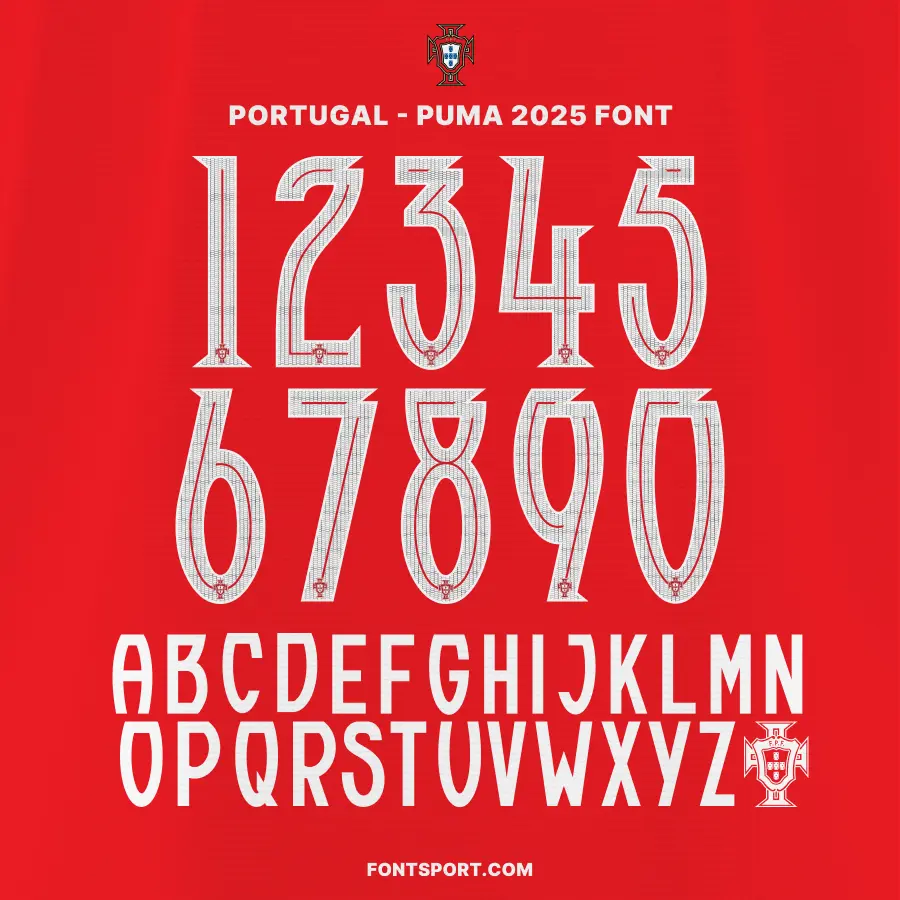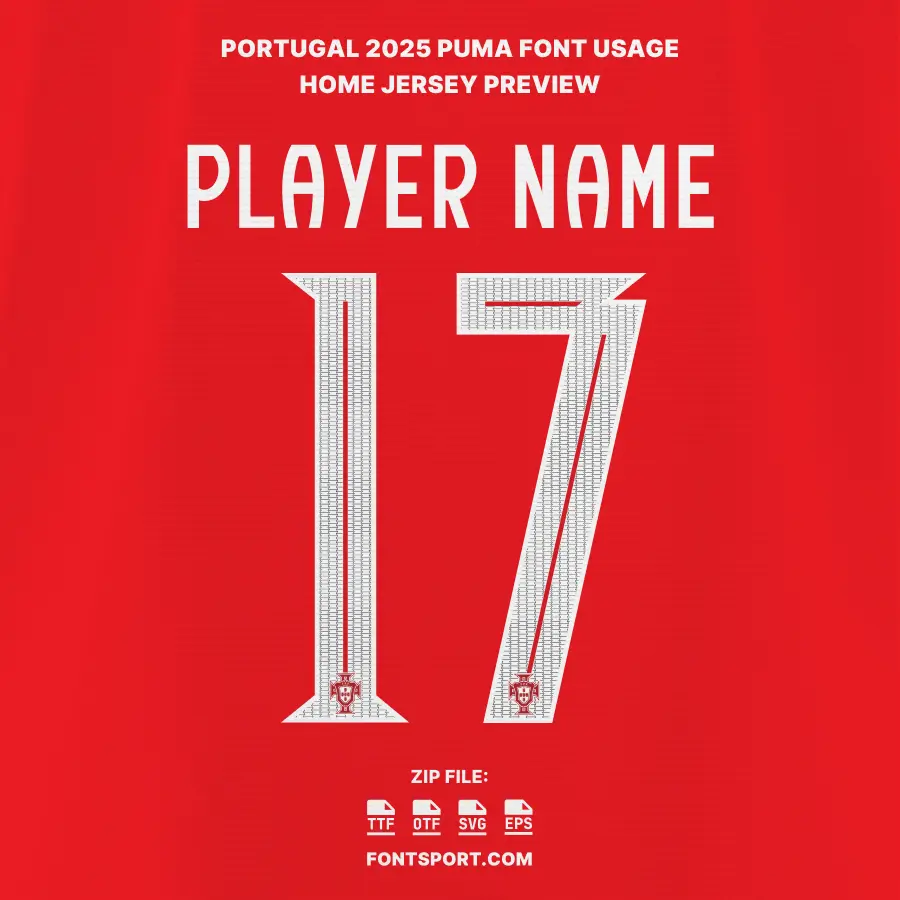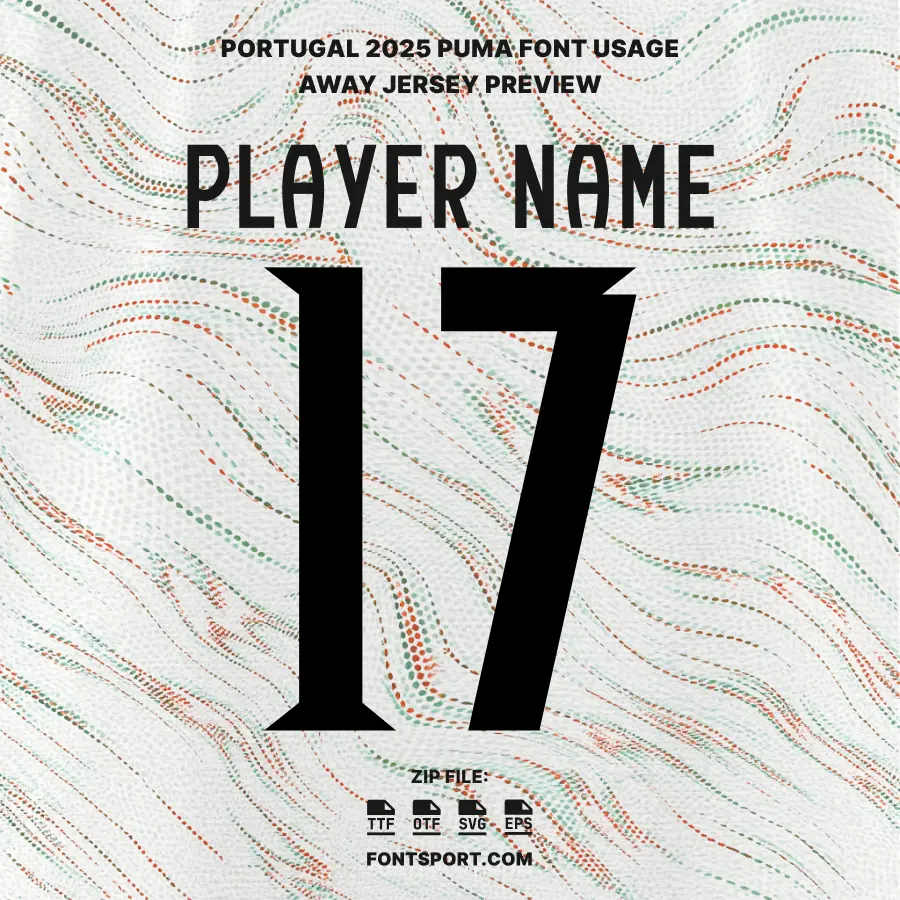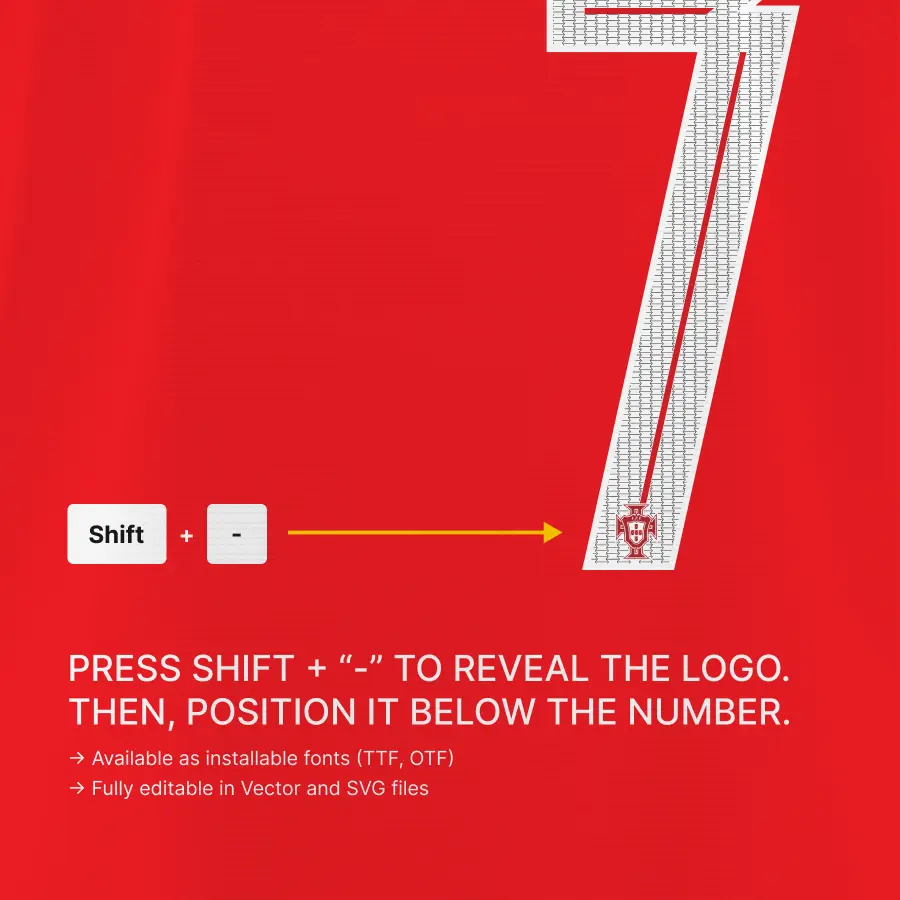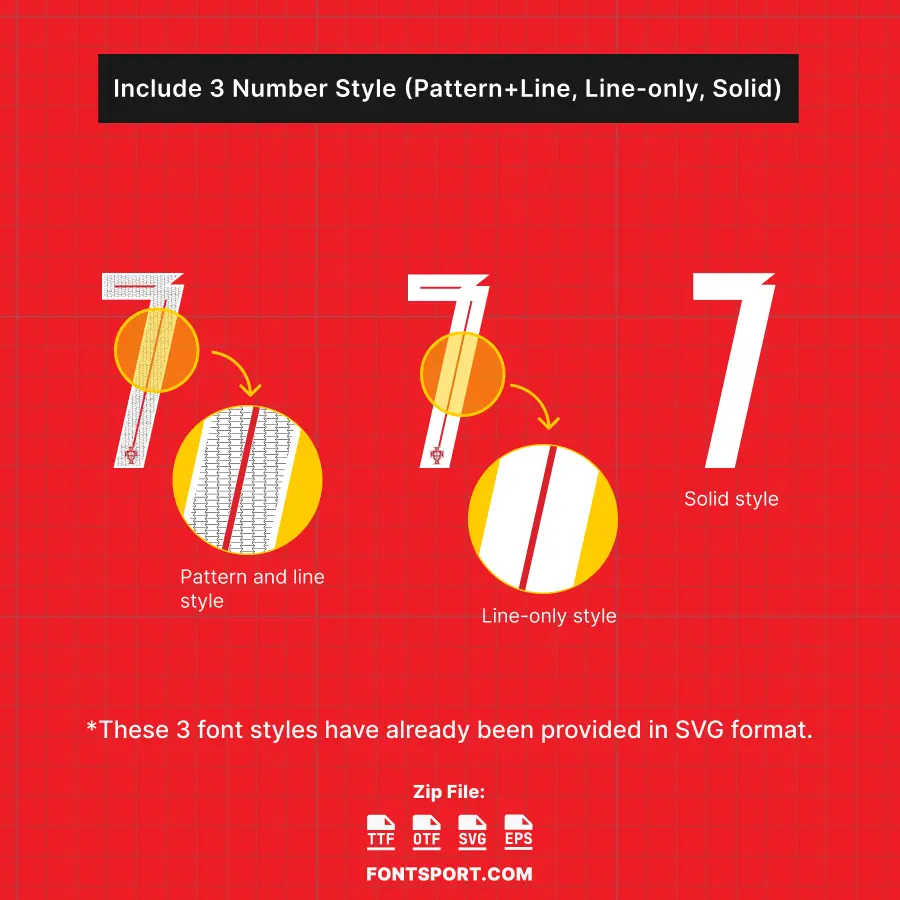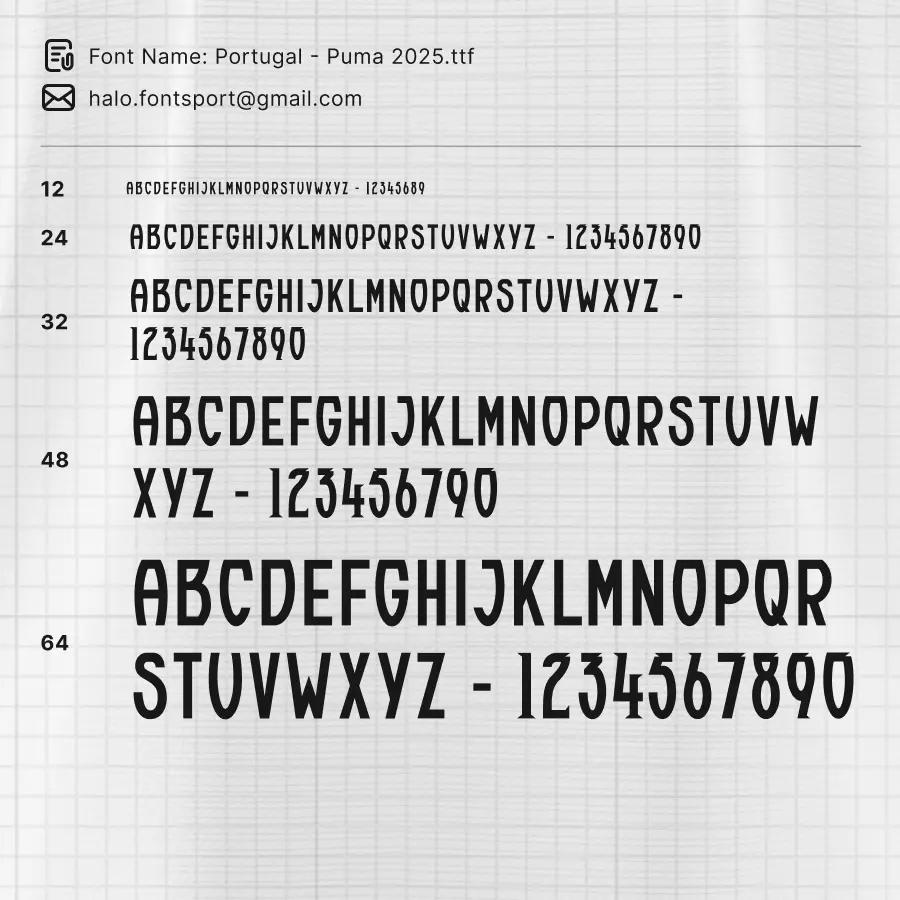
Bring Portugal’s 2025 Identity Into Your Design
The Portugal Puma 2025 Font Kit brings a clean and modern look inspired by Portugal’s upcoming jersey design. It blends sharp geometry with smooth curves, creating a strong football-themed style. Because of its structure, this font works well for jersey designs, posters, match-day graphics, fan merchandise, and social-media visuals.
You can apply this font to both digital and print projects. It delivers a bold personality without sacrificing readability. As a result, your football creations gain a professional and dynamic appearance.
• ✔️ Uppercase A–Z
• ✔️ Numbers 0–9
• ✔️ Built-in crest glyph triggered by typing
This flexibility allows you to use the typeface for almost any design purpose, including packaging, gift wrap, banners, jersey mockups, and match-day visuals.
Why Use This Sport Font
This sport font offers strong readability, so your jersey numbers and player names remain clear even at a distance. In addition, the geometric forms add a modern football look that fits perfectly into contemporary sports design.
Furthermore, the inclusion of vector files ensures the design scales cleanly at any size. Therefore, it is an ideal football font, sport font, and font for jersey for designers aiming for a clean and authentic football aesthetic.
Portugal Puma 2025 Font Kit